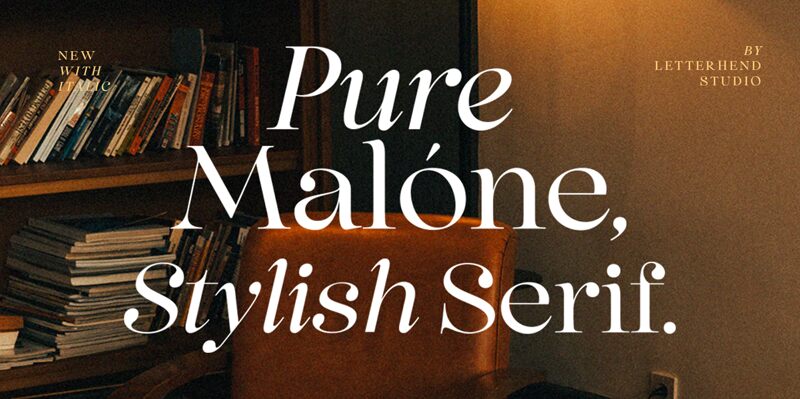
Pure Malone font by Letterhend Studio is a serif classic, elegant, and sophisticated in style. Traditional influences and modern appeal are balanced in this piece allowing designers to enjoy the best of both worlds. All characters feature even lines which contribute greatly to the uniformed presentation that is achieved every time.
This free serif font will be perfect within headlines, invitations, certificates, greeting cards, packaging designs as well as logos. Other uses include posters in addition to banners introducing products or even services.